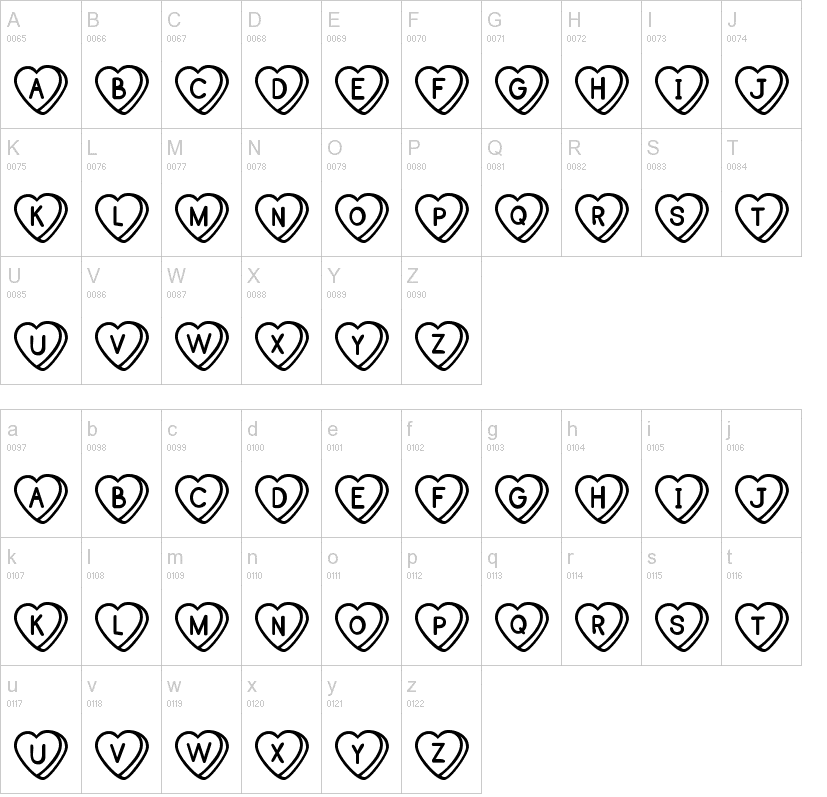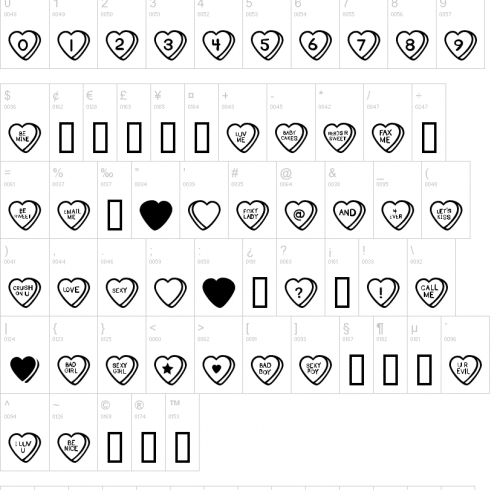
Valentine’s day is one of my favorite holidays. Sweat Hearts BV Font is an alphabet font that was inspired by the popular candy hearts with phrases on them. There’s some hearts with phrases that I thought should be available, peck around to find them.